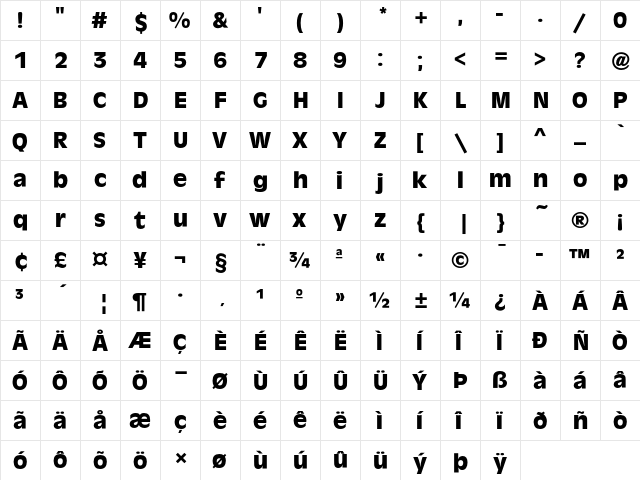
Antique Olive T Bold Font Preview
Antique Olive T Bold
Design Context for Antique Olive T Typeface
Antique Olive T has the warm character of retro typography — evoking diners, record sleeves, and the golden age of print advertising. Its bold stroke weight gives it real presence on the page.
Ideal for diner signage, record shop branding, 70s/80s-themed projects, and heritage product labels.
Font Pairing: Combine Antique Olive T with a simple slab or neutral sans — period-accurate companions reinforce the vintage feel without competing for attention.
Pro Tip: Lean into Antique Olive T's period character by pairing it with aged paper textures, muted colour palettes, and vintage illustration styles.